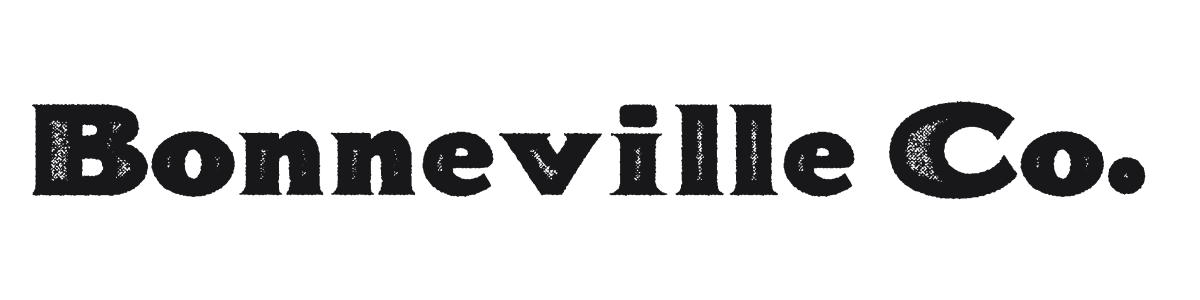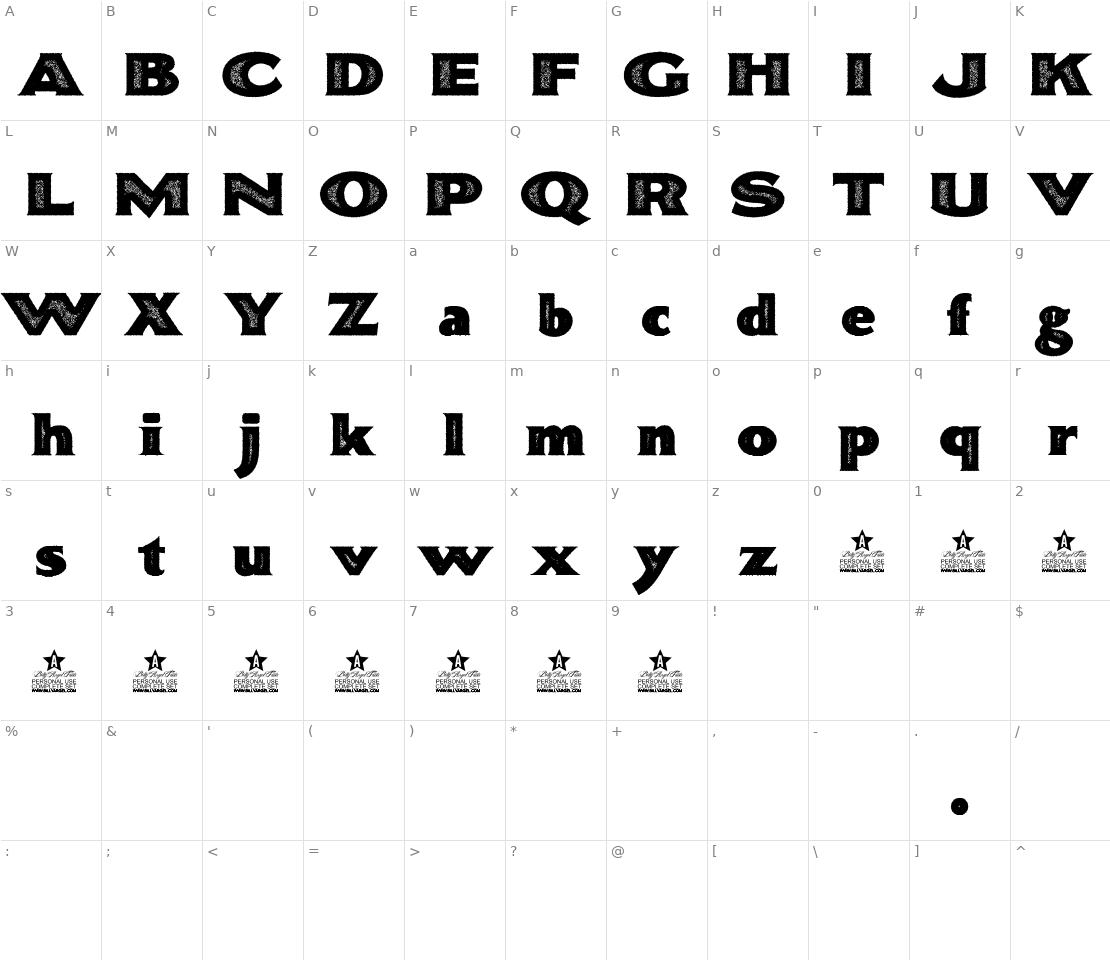
Bonneville Co.
Bonneville Co. is a heavy slab serif from Billy Argel with a worn, textured finish that gives it the look of old wood-block printing or weathered signage. The bold letterforms carry a distinctly western, frontier-era personality, with enough grit and distress to feel authentically aged rather than artificially roughed up. Built for headlines, posters, and vintage branding where you want type that looks like it's been nailed to a saloon wall.